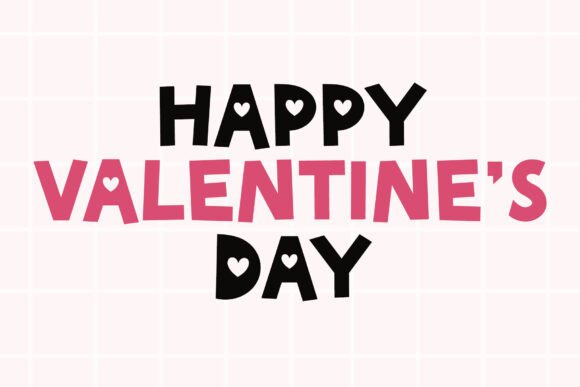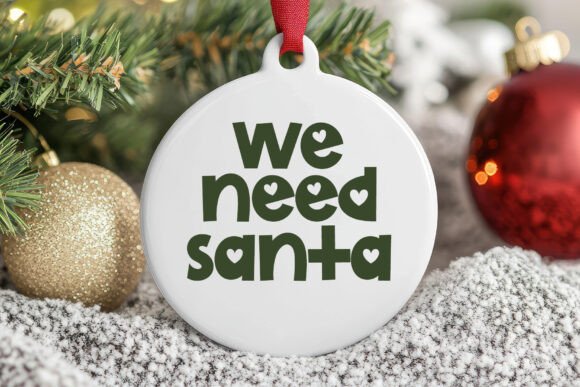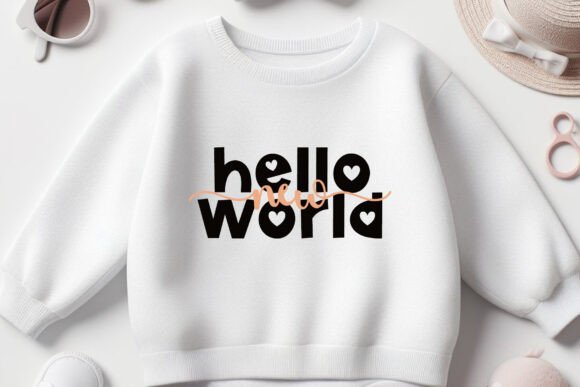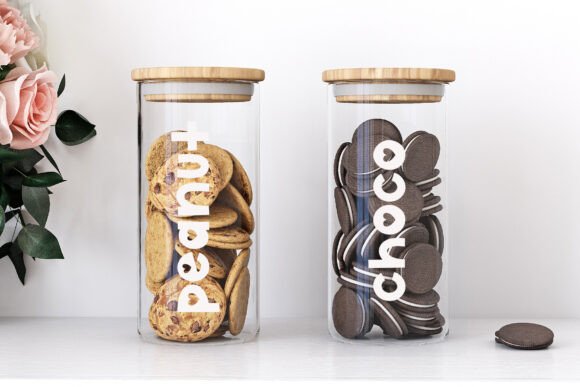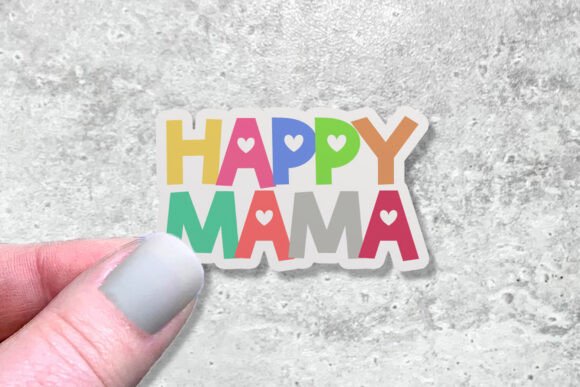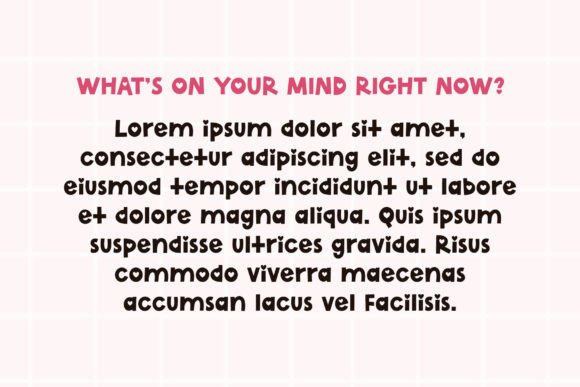
A Font that Speaks Straight to Your Heart
You know that moment when you’re brainstorming ideas for a special project, and suddenly, inspiration strikes? Maybe it’s a Valentine’s Day card, a birthday gift, or a sweet reminder for a loved one. Whatever it is, you want it to be perfect – and that’s where the right font can make all the difference.
Enter For You Font, a charming and bold typeface that’s sure to capture the hearts of your audience. This adorable font features heart accents that add a touch of whimsy and romance, making it perfect for a variety of designs with cute and romantic themes. Whether you’re a seasoned designer or just starting out, For You Font is a valuable addition to your toolkit – and we’re excited to share its charms with you!
Key Features of For You Font
- Font Family: For You Font is a sans-serif font family, designed to be modern and clean.
- Character Set: The font includes a wide range of characters, including Latin, Cyrillic, and Greek alphabets, making it suitable for multilingual use.
- Unique Characteristics: For You Font features a unique blend of modern and classic design elements, with clean lines, geometric shapes, and subtle rounded edges.
For You Font Review
I recently had the chance to work with the “For You Font” and I must say it’s been an interesting experience. Here are my thoughts.
- Unique aesthetic: The font has a distinct, modern feel that sets it apart from more traditional fonts.
- Legibility: Despite its unconventional design, the font is surprisingly easy to read, even at smaller sizes.
- Limited character set: The font only includes a limited range of characters, which may not be suitable for languages that require a wider range of symbols.
- Lack of bold and italic variations: While the font is available in several weights, it would be great to have more options for emphasis and contrast.
- Not suitable for body text: Due to its unconventional design, the font may not be the best choice for large blocks of text.
Overall, I think the “For You Font” is a great choice for designers looking to add some visual interest to their projects. However, it may not be the best option for projects that require a more traditional or readable font. With some careful consideration of its limitations, this font can be a great addition to any designer’s toolkit.
The For You font is suitable for a variety of applications, including:
- Personalized gifts and party decorations